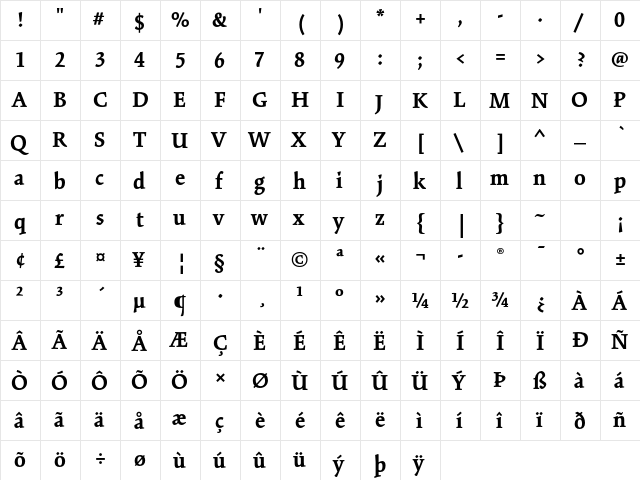
Kinesis Std Bold
| Designer | Mark Jamra |
Design Context for Kinesis Std Typeface
Kinesis Std takes a measured approach to typography — its balanced proportions and neutral character make it a reliable workhorse for both digital and print work. Its bold stroke weight gives it real presence on the page.